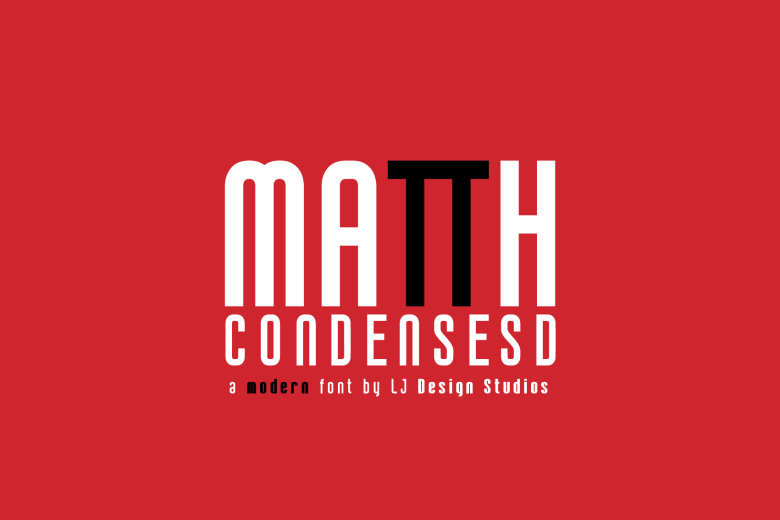
Matth Condensed Font
Matth Condensed by LJ Design Studios is a striking condensed-style font designed with simplicity and versatility in mind. Its semi-round shape gives it a clean and modern appearance, making it an excellent choice for a range of applications, including logos, T-shirt prints, and other design projects where space is at a premium.
The font’s condensed structure allows it to fit neatly into tight spaces while maintaining readability and impact. This makes Matth Condensed particularly well-suited for designs that require a compact yet bold typographic presence. Its straightforward and stylish design ensures it stands out across various media and formats.